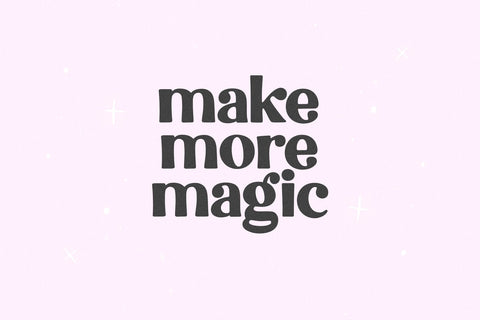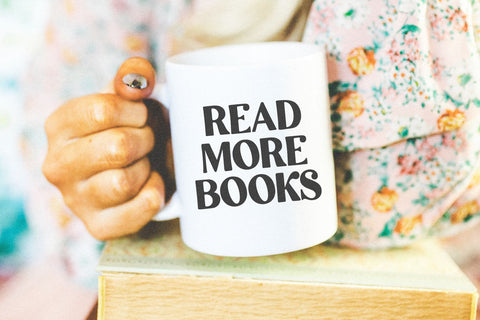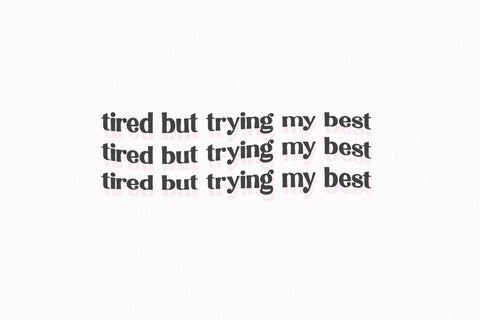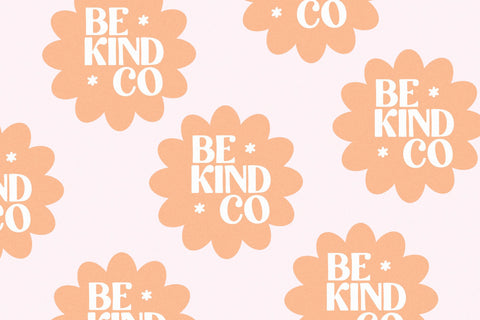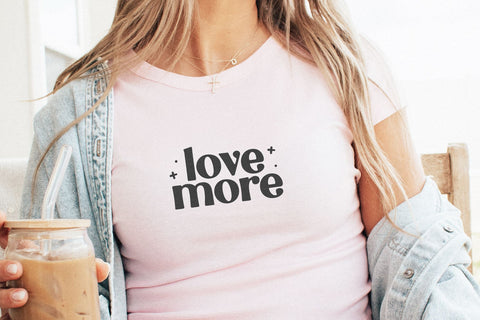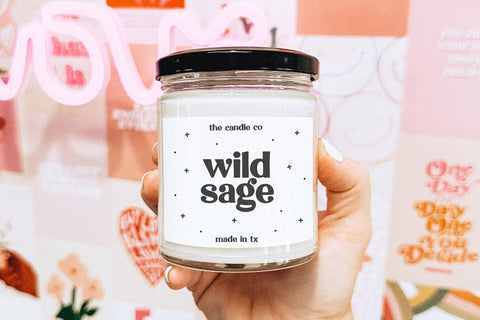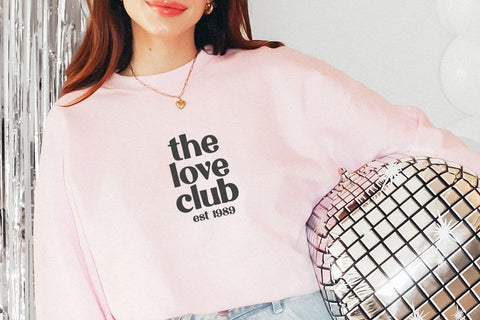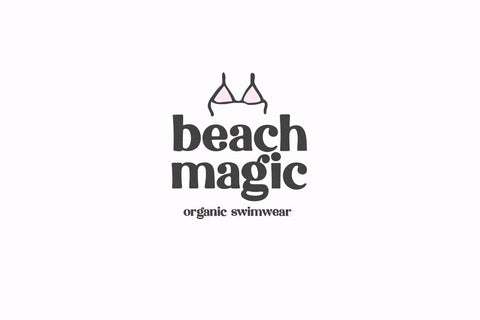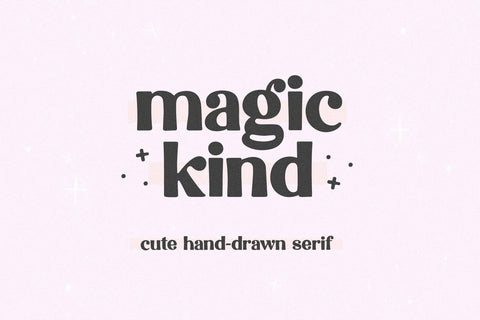
Magickind - Cute Hand-drawn Serif Font
Magickind is a cute hand-drawn serif font.
This font is perfect for branding, logos, quotes, cricut projects, canva, posters, shirts, svg files, signs, stickers and more!